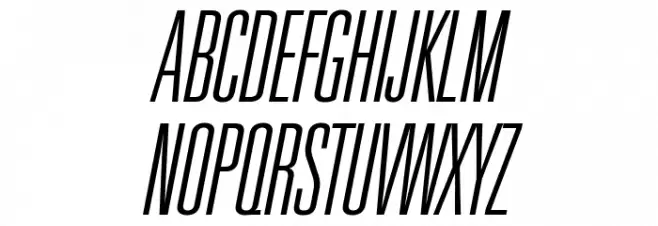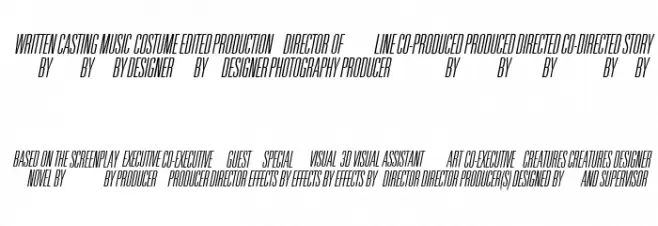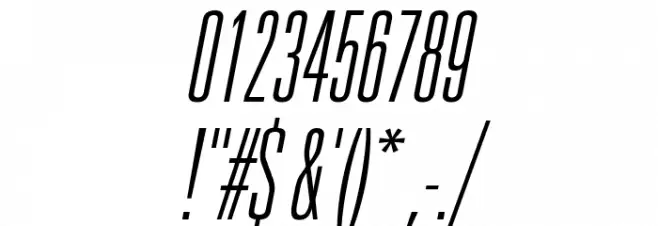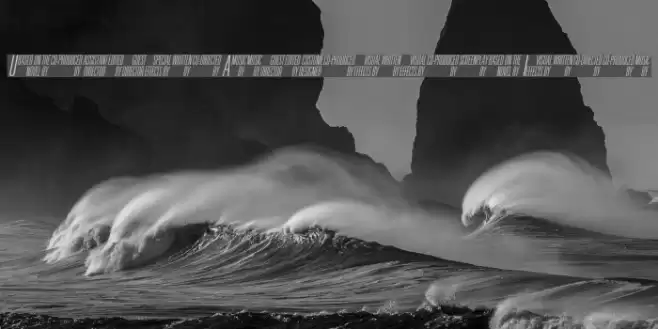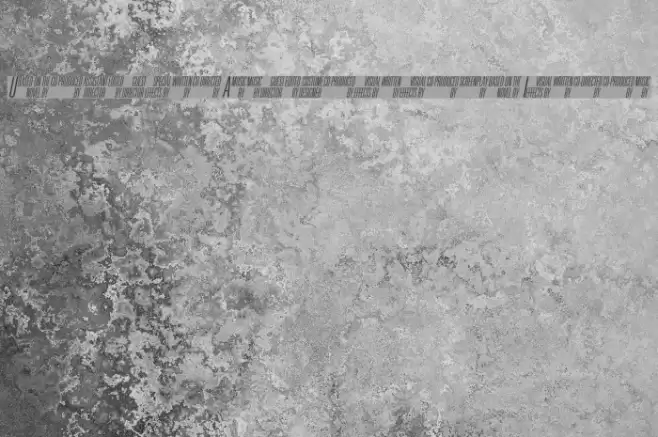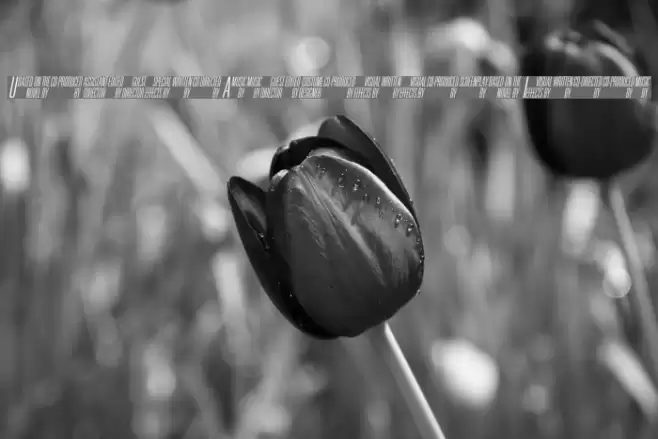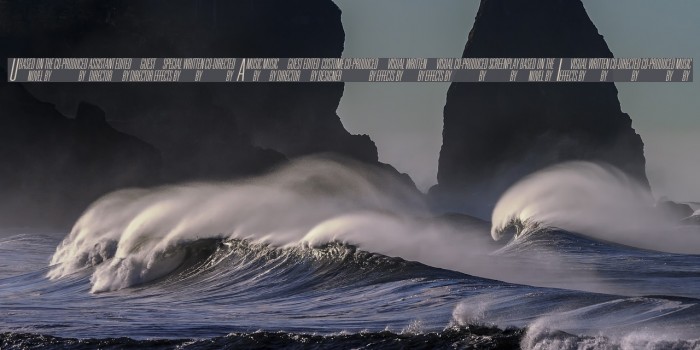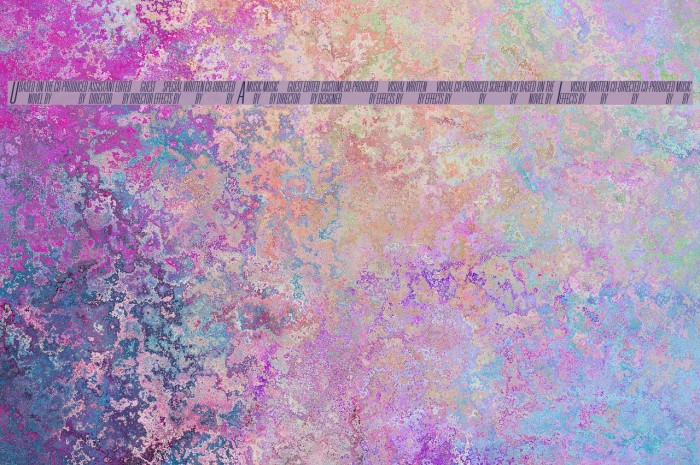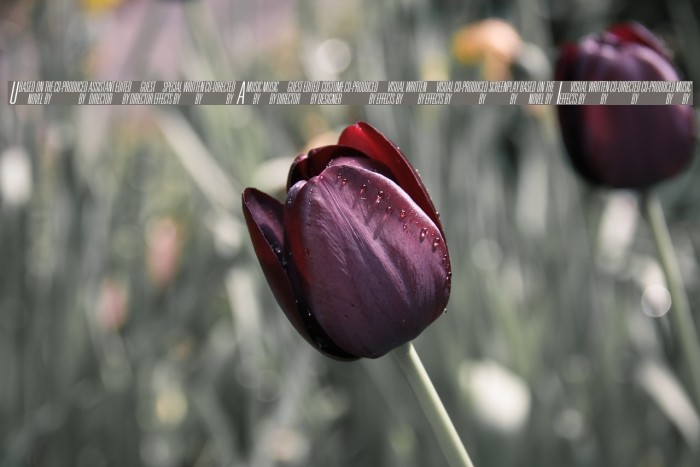
Universal Accreditation Italic
This font exhibits a sleek and modern italic style, characterized by its elongated and slightly condensed letterforms. The uppercase letters are tall and narrow, giving a sense of elegance and sophistication. The lowercase letters maintain a consistent slant, enhancing the italicized effect. Numbers and special characters follow the same design principles, ensuring uniformity across all glyphs. The overall appearance is clean and professional, suitable for projects that require a contemporary and stylish look. The font's design is ideal for conveying a sense of movement and dynamism, making it perfect for creative and artistic applications.
A sleek, modern italic font with elongated, condensed letterforms.
- Proposed Projects: Ideal for branding, advertising, fashion magazines, and modern web design.
- Width: Condensed
- Use Case: Headlines, Logos, Branding